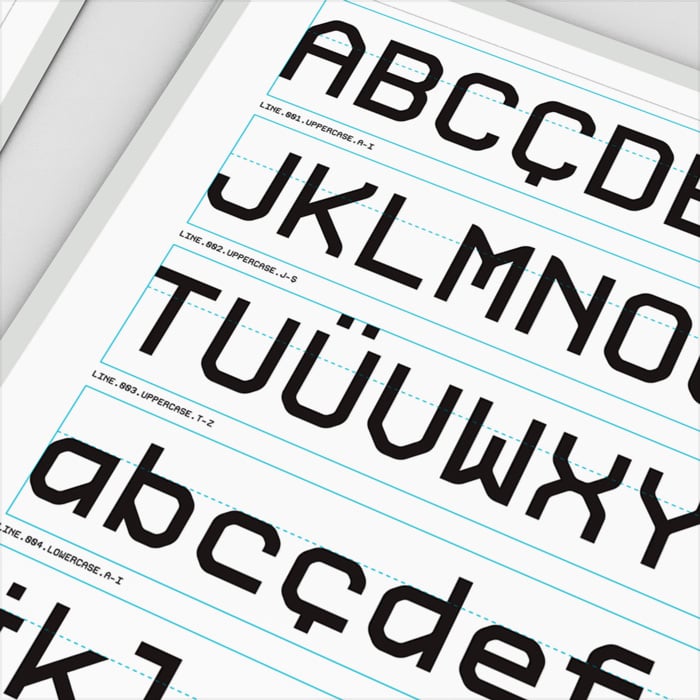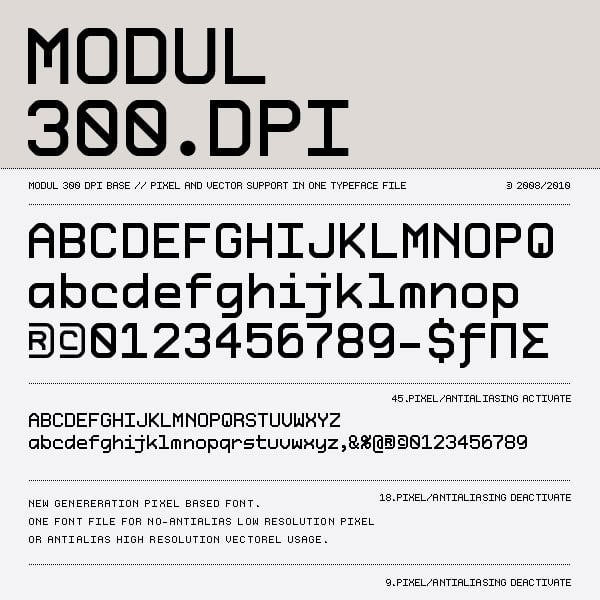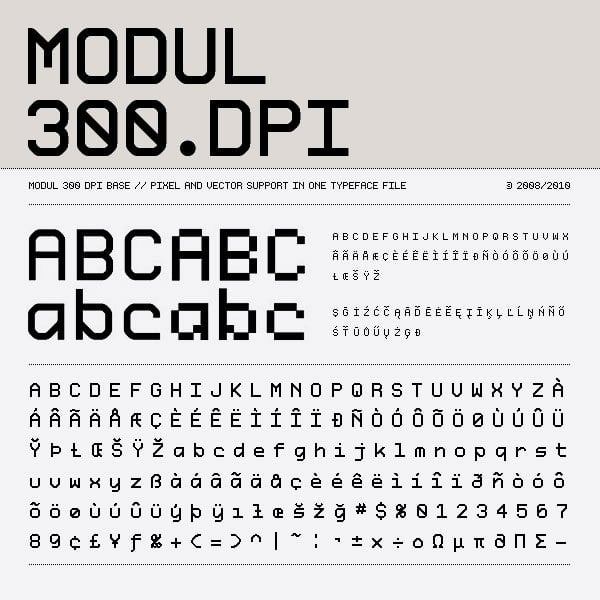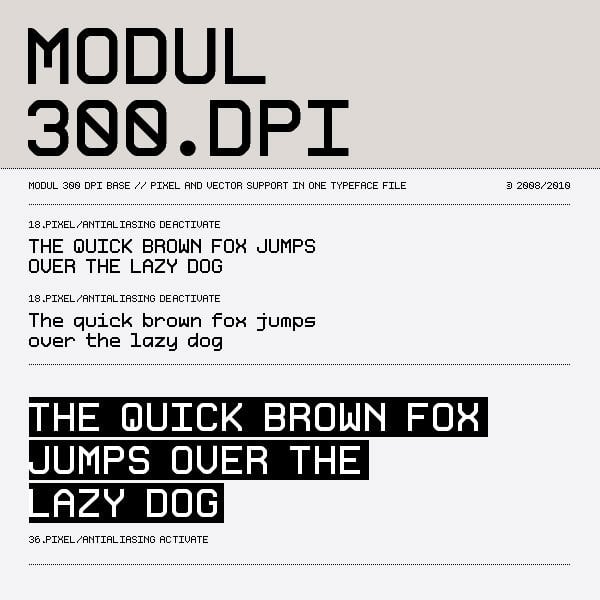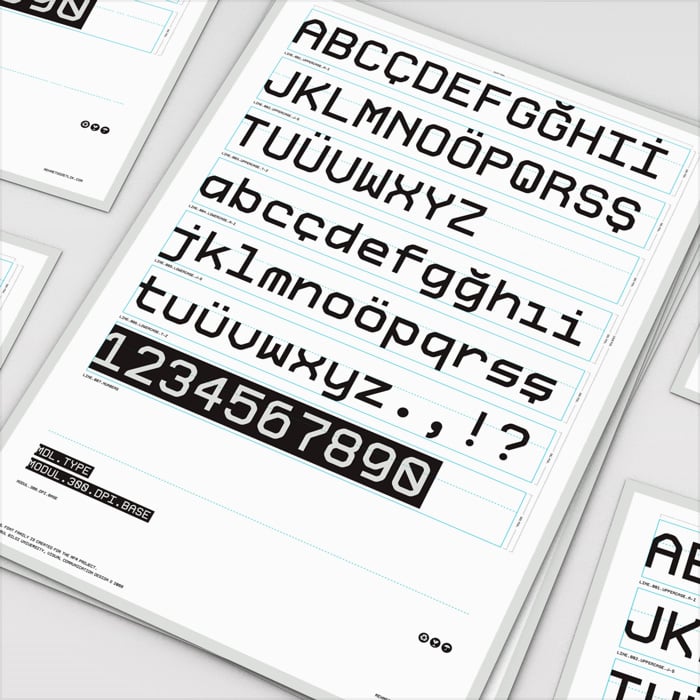
Modul 300 dpi Pixel Based Font
Next Generation Font
Modul 300 dpi Base
Modul 300 dpi Base was created for graduate thesis. This thesis presents font designs which are capable of covering what is demanded by the "digital age" and discusses the issues that need to be considered regarding the applications within this new age.
Pro based font structure
Modul is supporting Latin base encoding also it's supporting the languages of Central European.